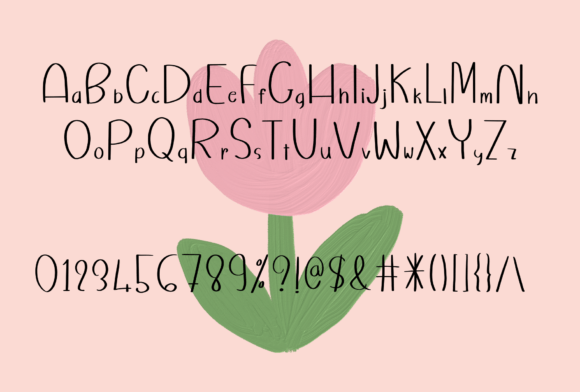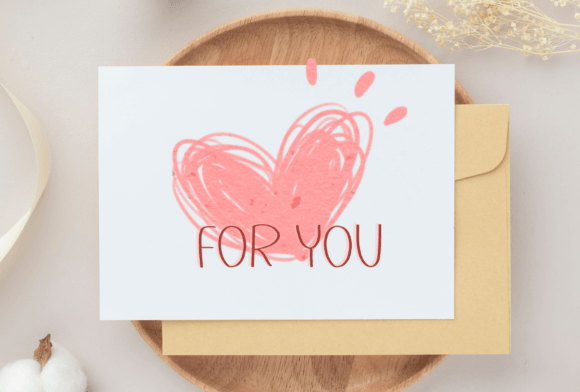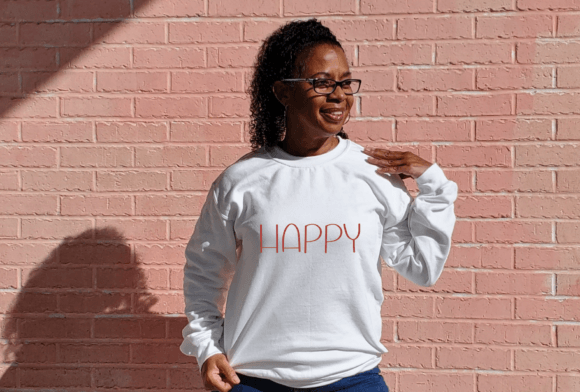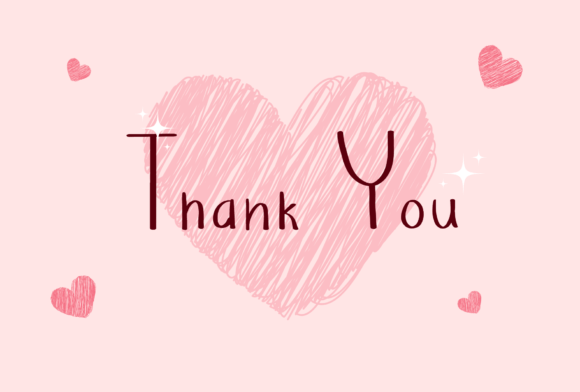
Happy Summer Font
Cute Handwritten Summer Font for Playful and Joyful Designs
If you’re looking to brighten up your designs with a touch of charm and creativity, Happy Summer might be your new favorite typeface. This cute handwritten summer font blends simplicity with playfulness, creating a joyful aesthetic that feels light, fresh, and fun. Whether you’re working on a personal project or crafting a product for your shop, Happy Summer adds the right energy to every letter.
With its clean lines and casual handwritten feel, this font brings out the best of the warm season — in every design you make.
Discover Happy Summer: Playful, Versatile, and Handcrafted
Happy Summer was designed with friendliness in mind. Its rounded curves and relaxed flow create an inviting look that suits a wide variety of creative applications. As a result, this cute handwritten summer font is ideal for both digital and print formats.
Some great ways to use it include:
• Stickers and planner layouts
• Greeting cards and thank you notes
• Apparel designs and t-shirt prints
• DIY crafts and scrapbooking
• Digital notebooks and journals
• Social media graphics and summer promos
Wherever you want to add a bit of sunshine, Happy Summer is ready to deliver.
Why Designers Love Happy Summer
Happy Summer offers more than just a cheerful look. It also gives designers a smooth, readable script that’s perfect for both small and large text. Here’s why creatives keep coming back to it:
• Casual handwritten style with clean lines
• Works beautifully in both digital and print projects
• Perfect for lighthearted, seasonal, and fun branding
• Easy to mix with other fonts or graphic elements
This cute handwritten summer font brings a personal and friendly tone to your design, making it perfect for products, posts, and everything in between.
Ideal for Crafters, Teachers, and Summer Creators
Happy Summer is especially popular with:
• Etsy shop owners and printable creators
• Teachers designing seasonal classroom materials
• Content creators who need cheerful visuals
• DIYers creating fun gifts or personal stationery
• Social media marketers promoting summer events or sales
Its relaxed style pairs perfectly with casual or youth-oriented designs.
Happy Summer is the ultimate font for warm vibes, fun messages, and everyday creativity. With its handwritten touch and easygoing attitude, this cute handwritten summer font brings a splash of sunshine to every project. Whether you’re crafting a card or branding a summer line, it’s a must-have in your font library.